At (sign )
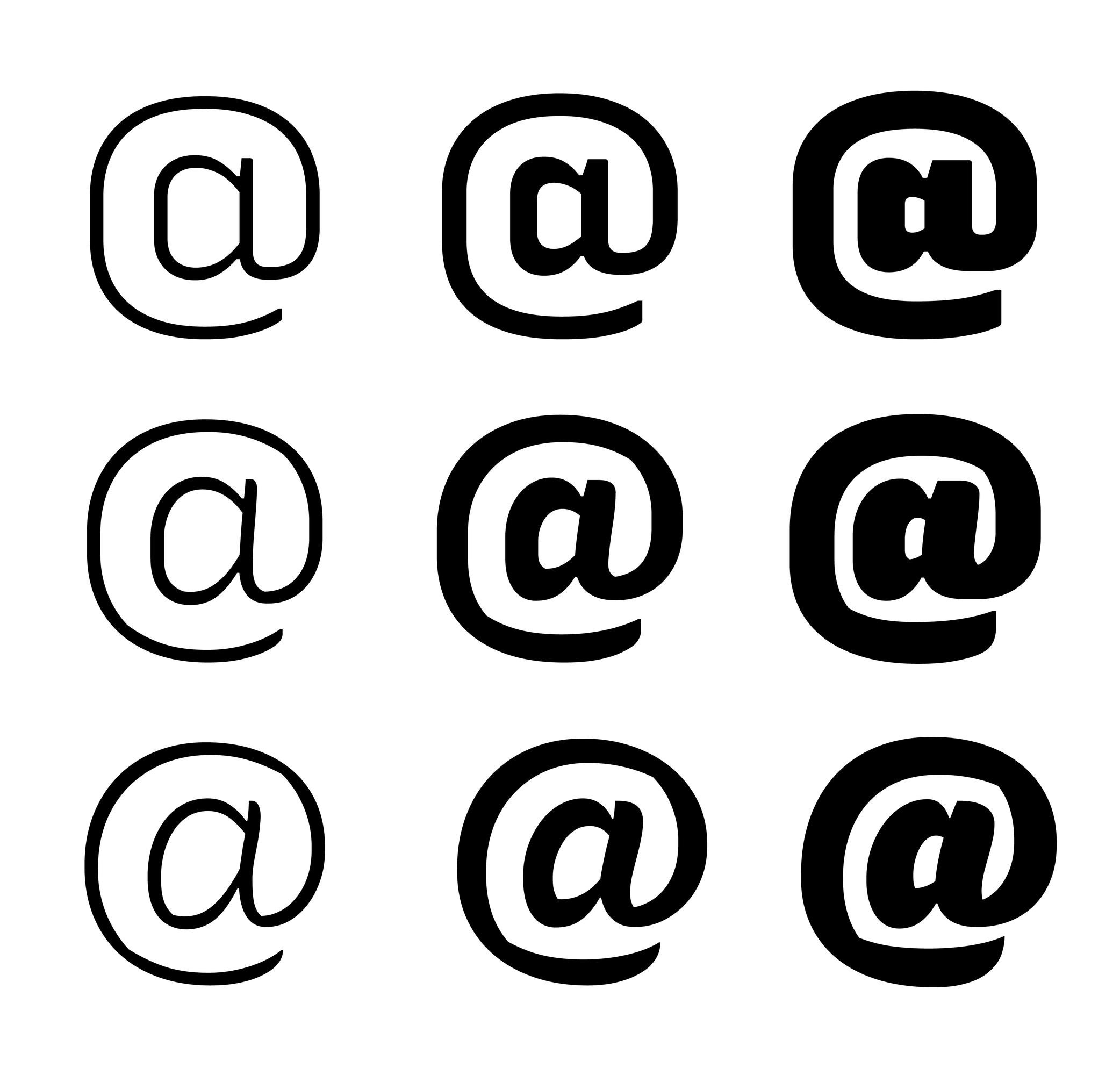
FUNCTION
The at sign (@) is used in email addresses to indicate a domain name or a social media account tag.
HISTORY
The origins of how and why the at sign was created and why it looks the way it does remain unclear. Allegedly, it has been created as a symbol to measure weight or quantity (to signify “at the rate of”) in some parts of Europe since the 14th century. That symbol looked more or less the same as the modern at sign: with a letter a circled by an elongated tail.
Since the use of email addresses, it is used to indicate at which domain name it is hosted.
DESIGN
The at sign is commonly designed as a lowercase a with a tail surrounding the letter. Due to the sign’s visual complexity, there are many solutions to simplify it by making the tail shorter (not entirely enclosing the a) or by starting the tail directly from the top instead of the bottom of the stem.
UNICODE
COMMERCIAL AT: U+0040